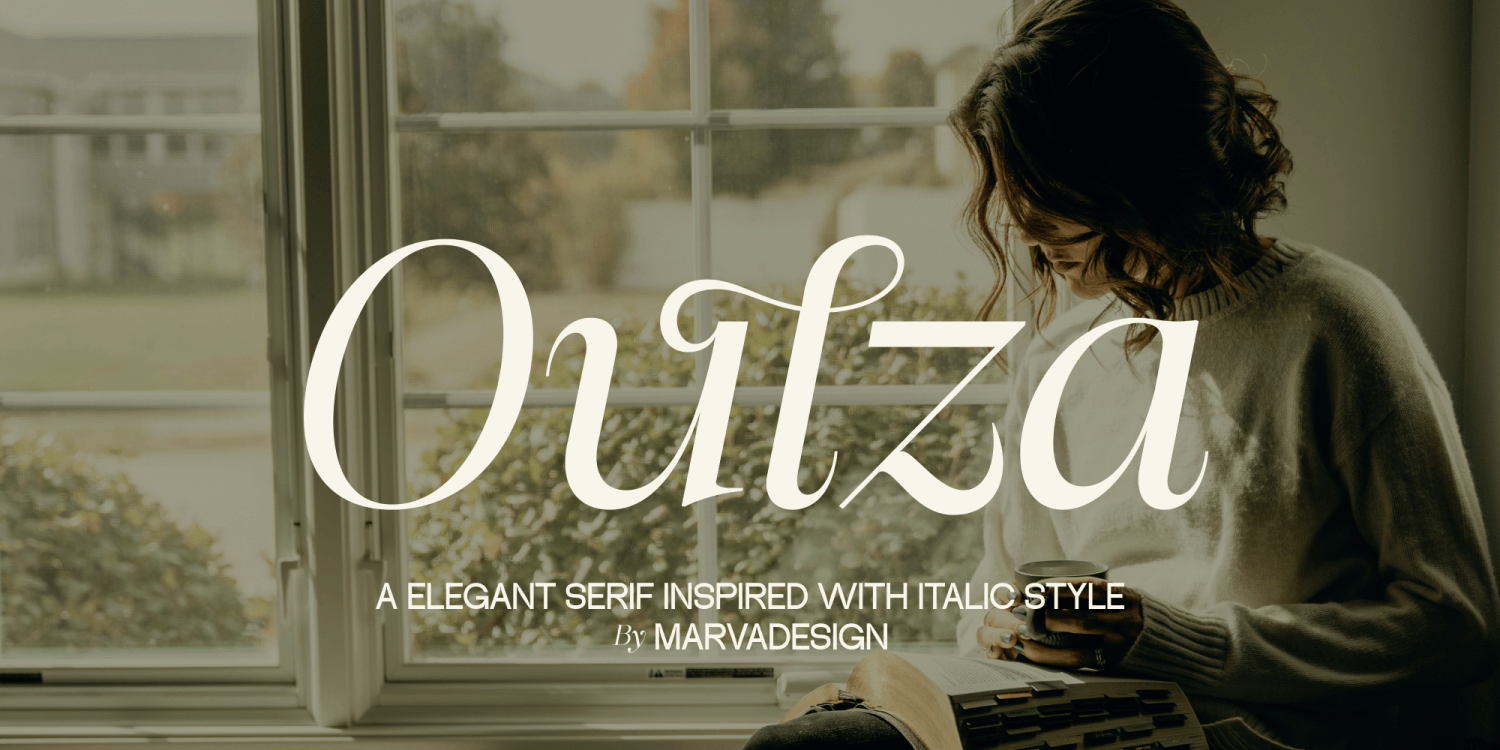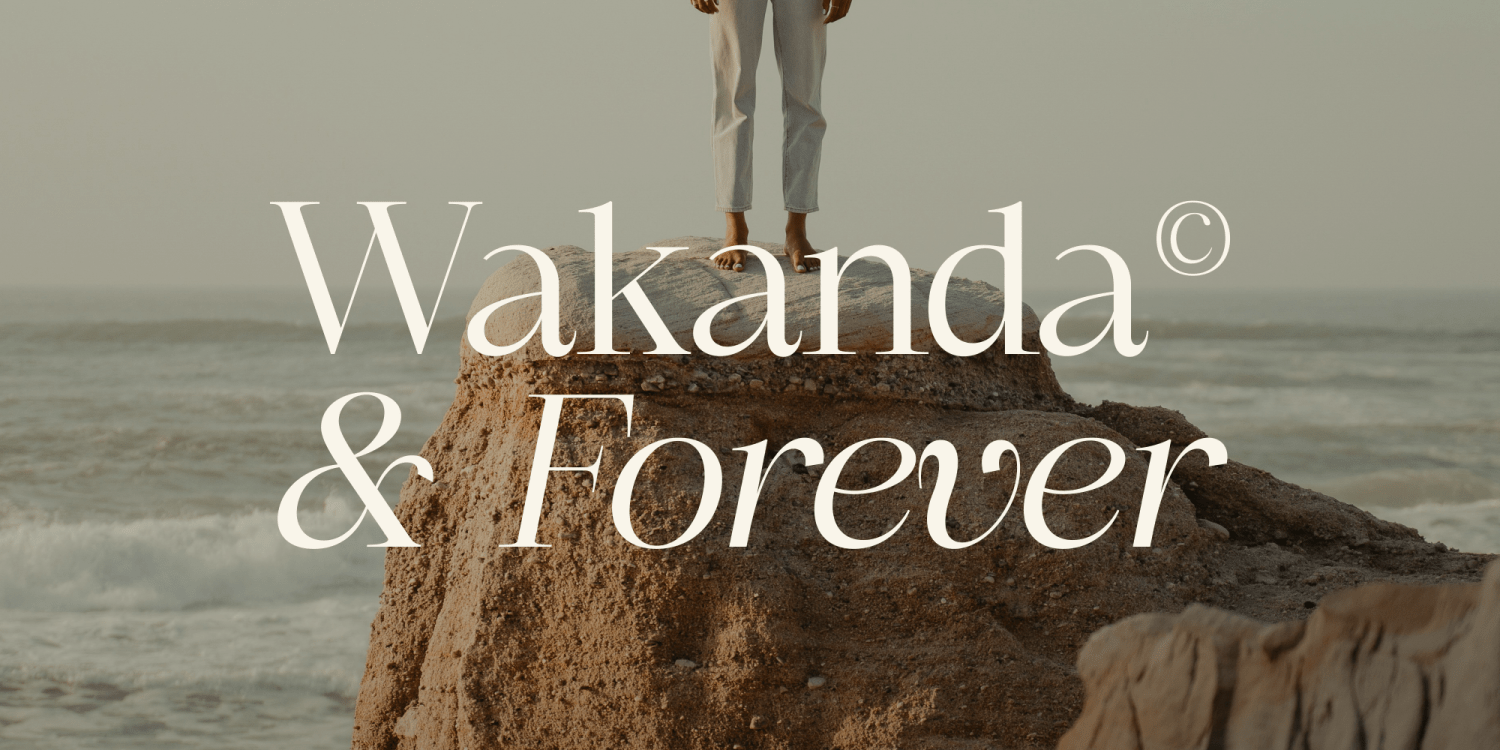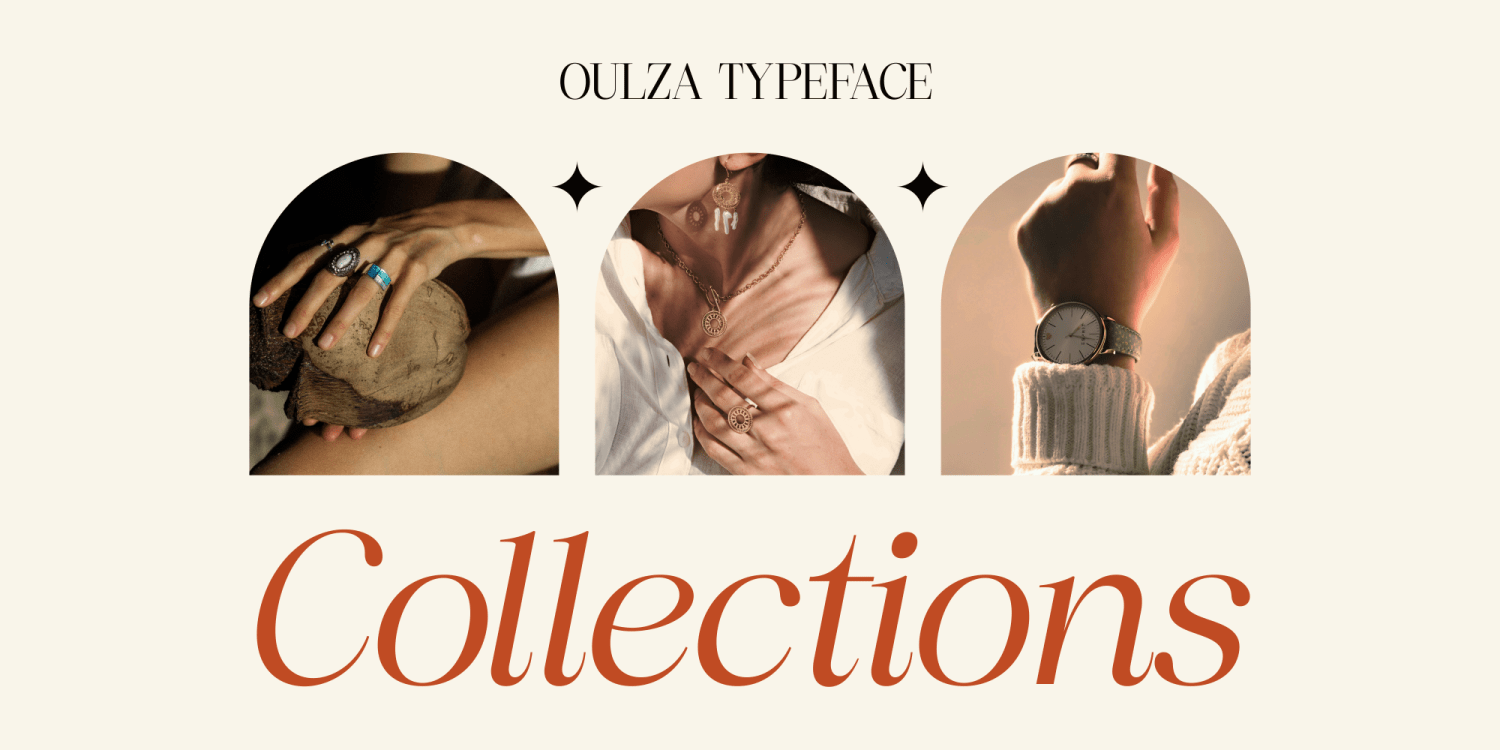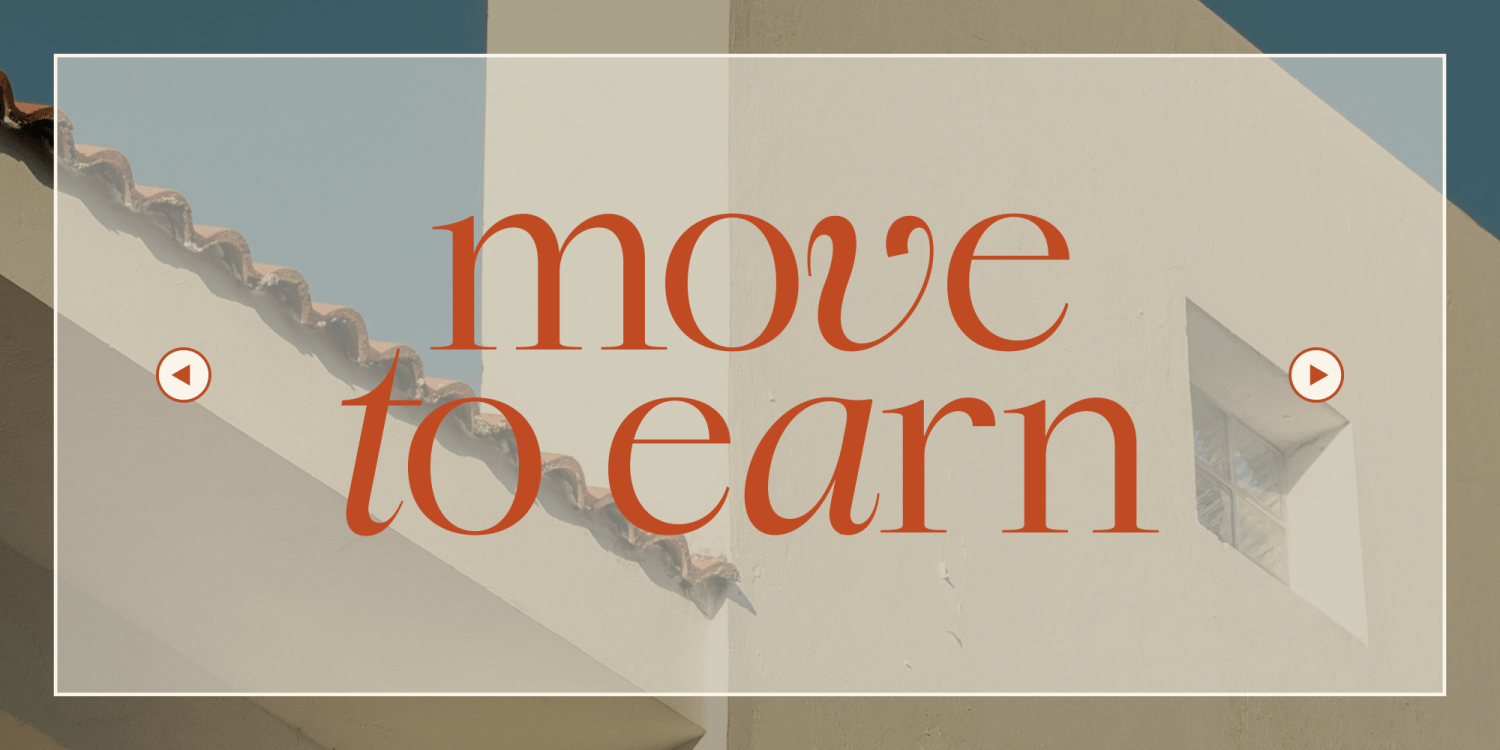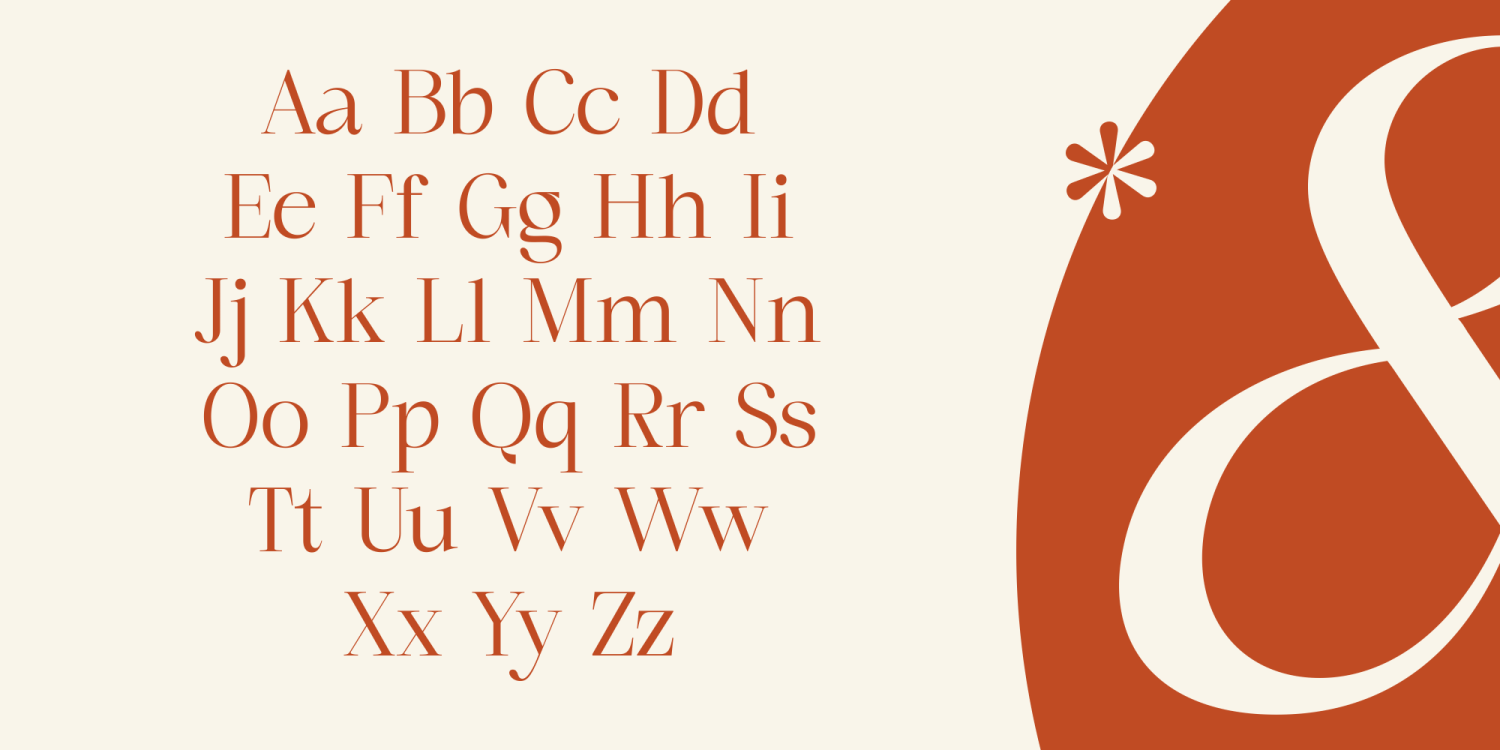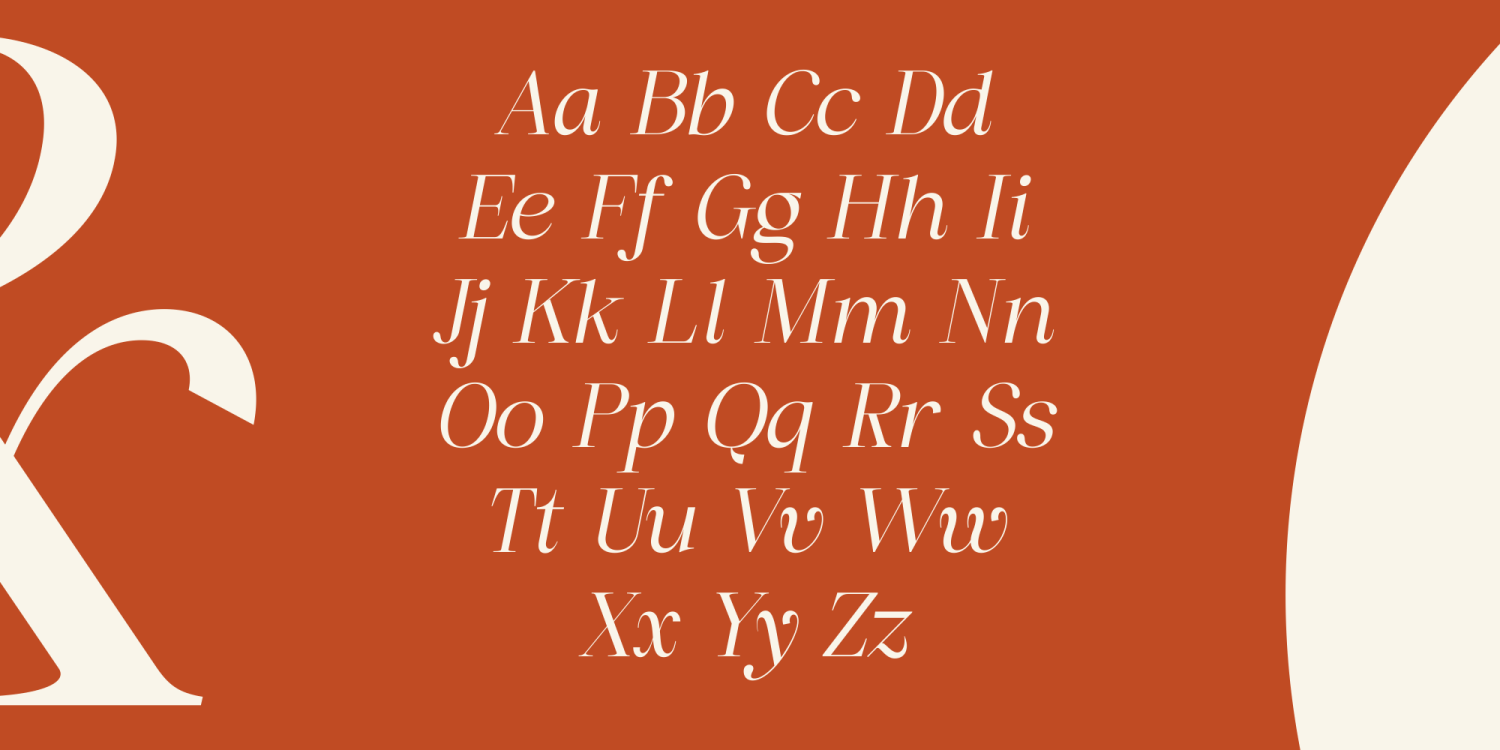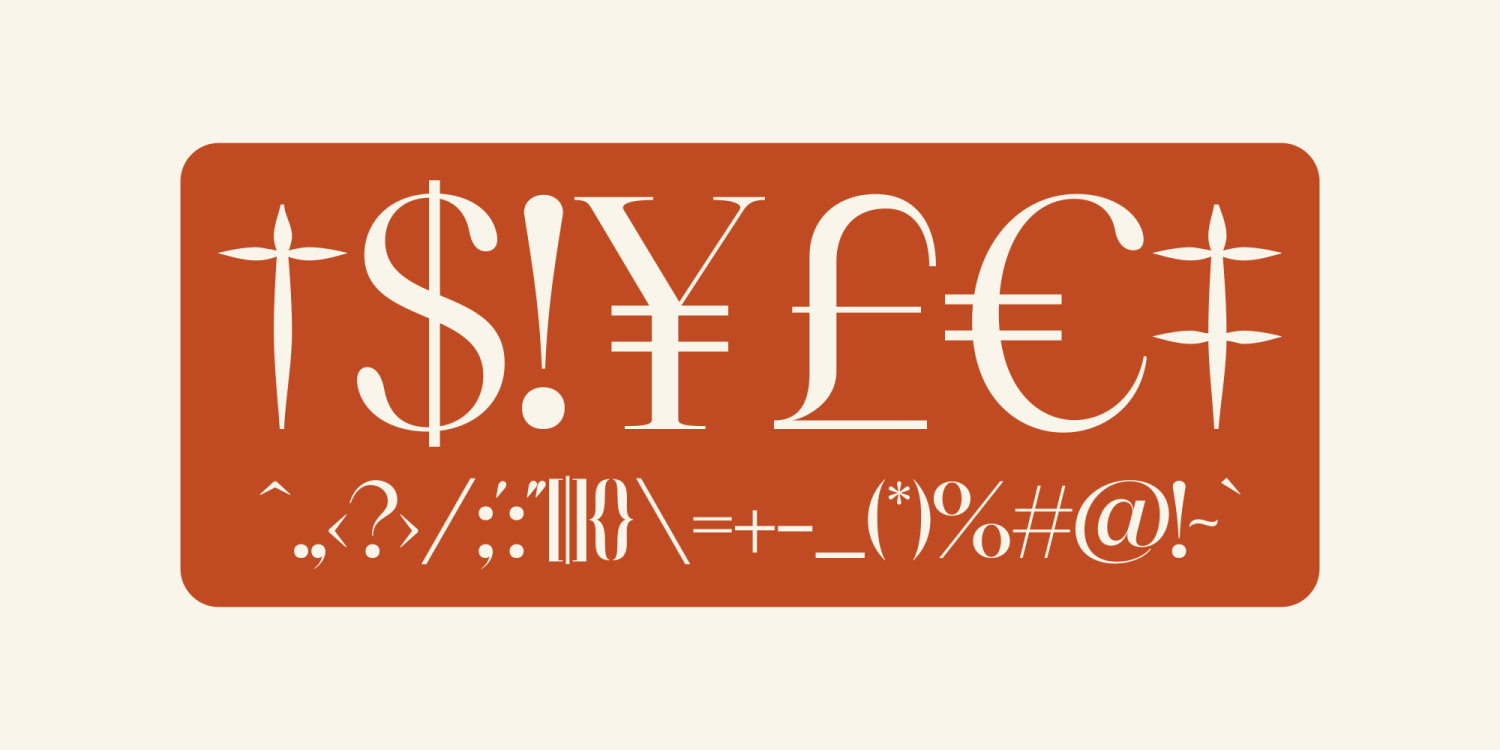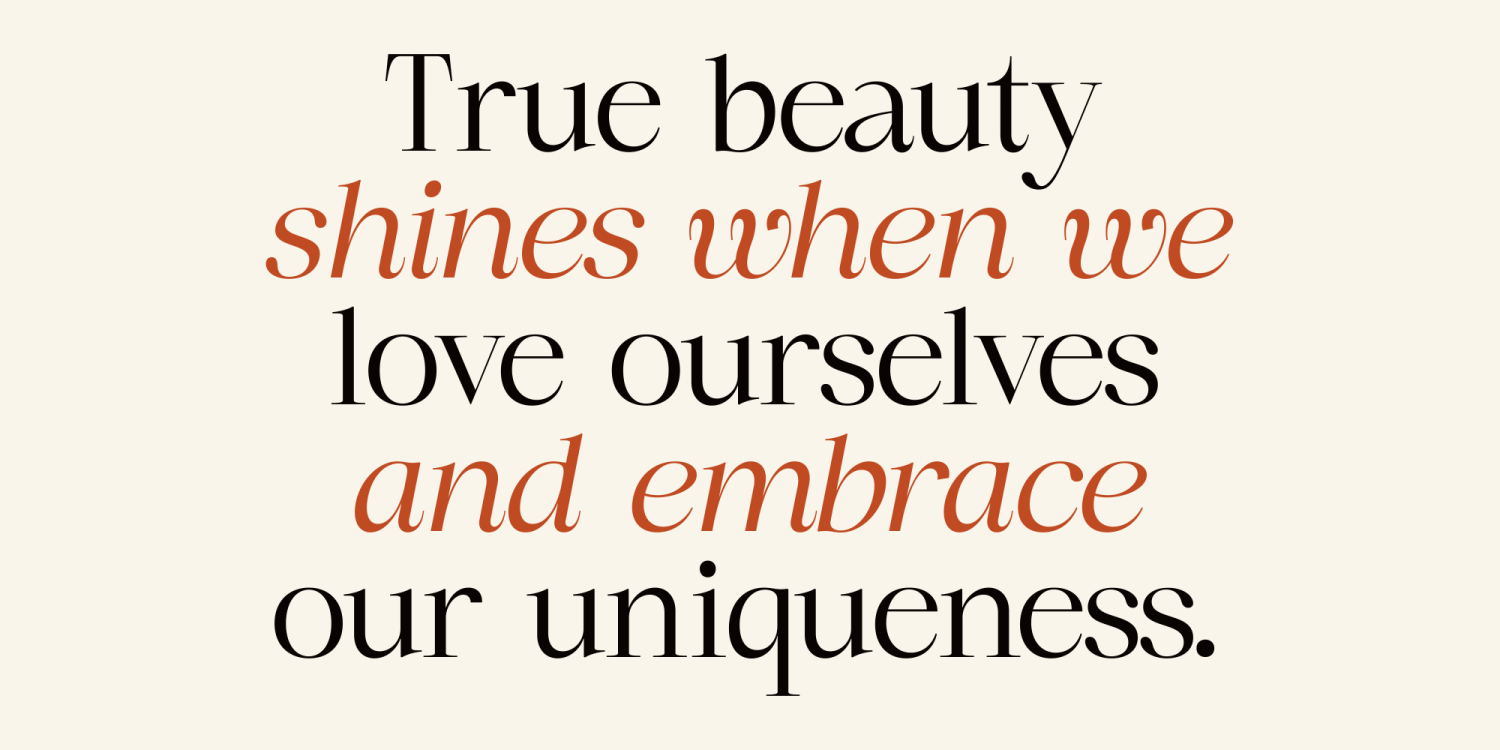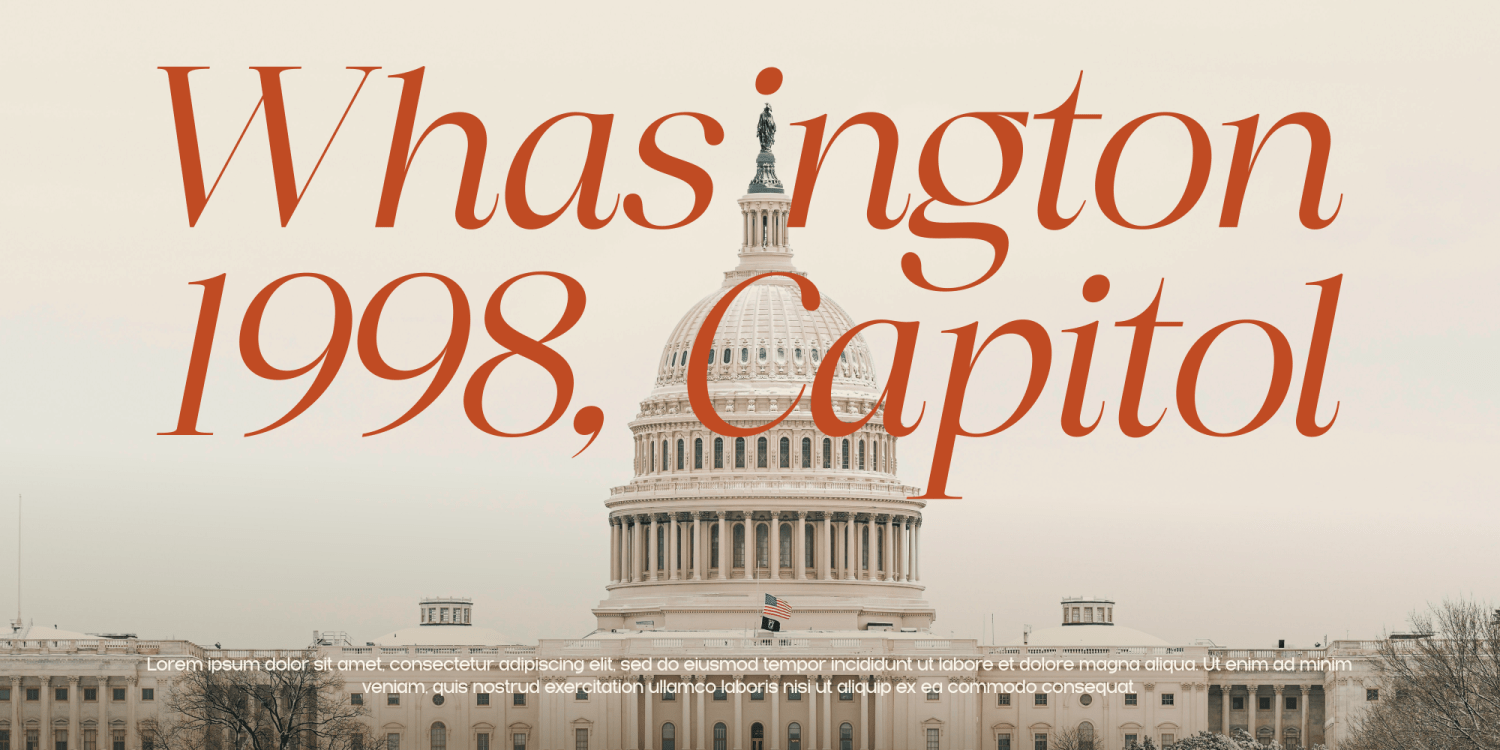
Oulza
Font Family by Marvadesign
Introducing Oulza is an elegant serif font that exudes sophistication and style. It comes in two distinct styles: Regular and Italic, offering versatility for various design needs. The font’s sharp, refined edges and balanced proportions create a timeless, classic look, making it perfect for high-end branding, editorial designs, or luxurious presentations. One of Oulza’s most unique features lies in its Italic style, where carefully crafted ligatures add an extra touch of elegance. These ligatures provide a fluid, graceful connection between letters, enhancing the overall aesthetic with a sense of artistry and sophistication.